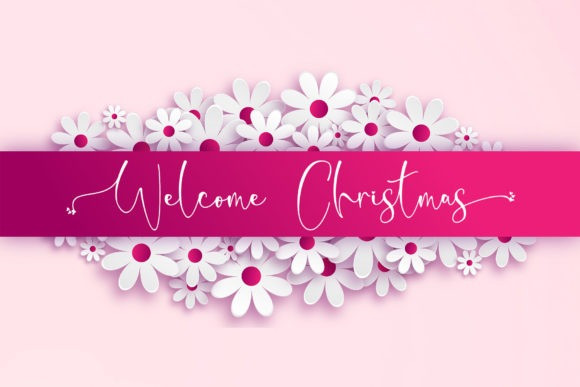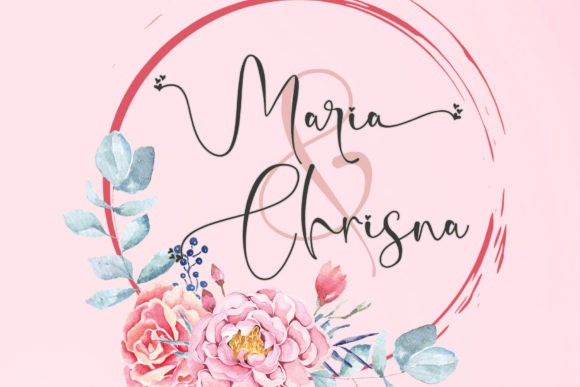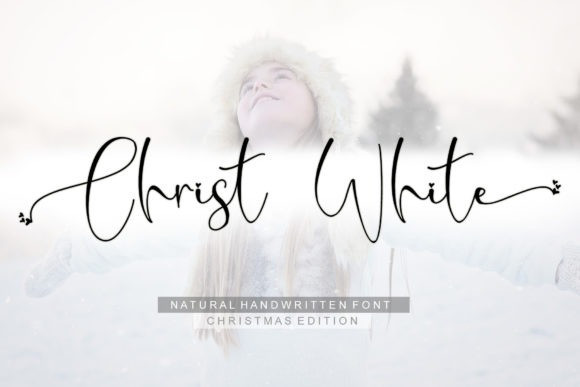
Christ White Font
Christ White Script Font is a gorgeous handwritten font. It has flowing letters that will give your designs a unique and sweet look. This versatility will appeal to a wide range of crafty ideas, from letterheads and titles, to stationery.